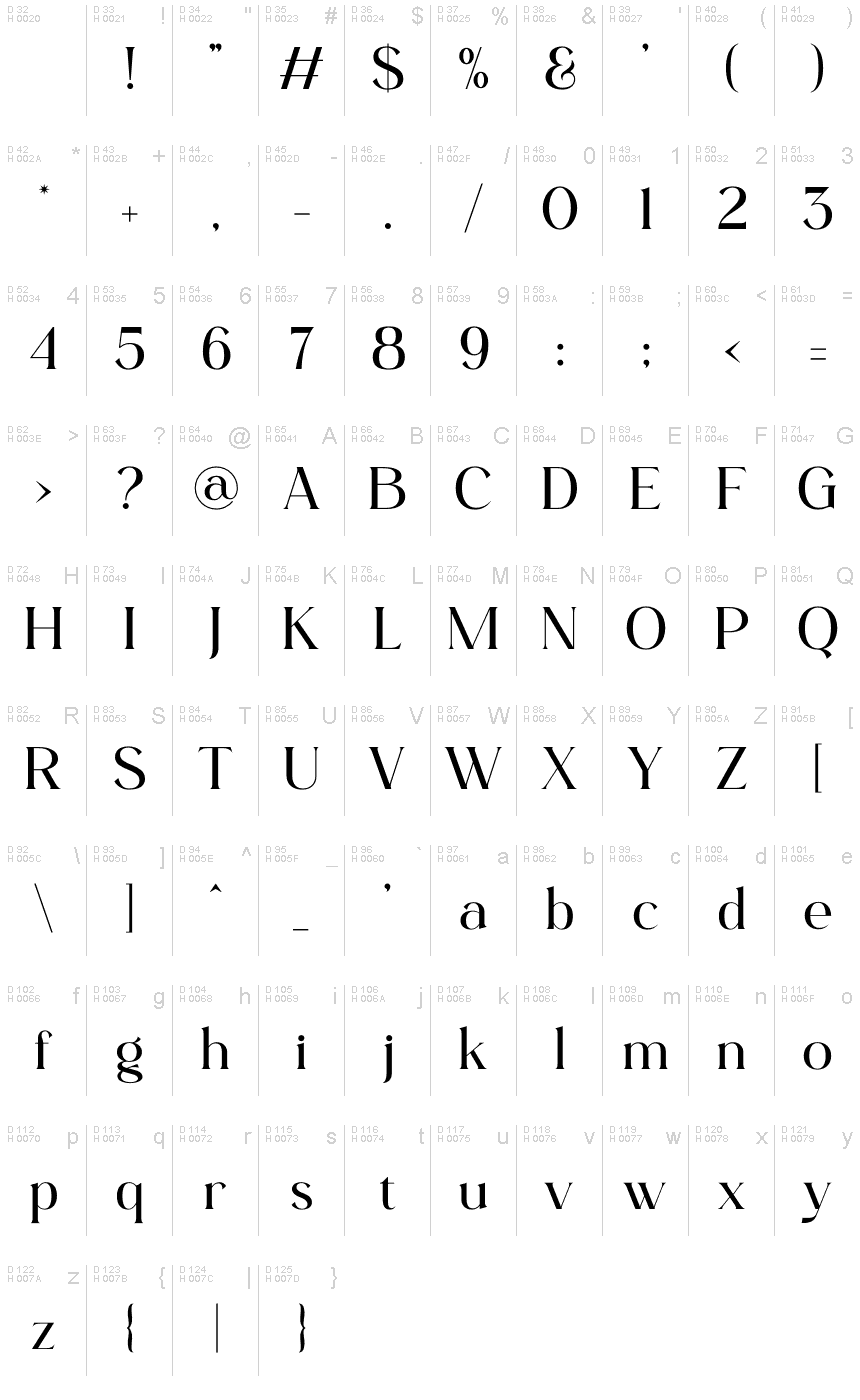
Groillim
Groillim, a serif typeface crafted by BrandSemut, emerges as a distinct blend of classic elegance and contemporary flair. Its serifs are finely tuned to exude sophistication, while the subtle curvature of the letters injects a modern twist into traditional typography. With an aesthetic that balances formality with approachability, Groillim boasts versatility across a spectrum of creative applications.
The font's character shapes display an exquisite attention to detail, ensuring legibility and a pleasing reading experience at various sizes. Groillim's potential shines in print media such as book publishing and editorial design, where its serif style conveys authority and credibility. Equally at home in digital formats, it enhances web design with its crisp outlines that scale beautifully on screens.
Whether used for branding or artistic compositions, Groillim stands out for its ability to marry the timeless beauty of serif fonts with innovative design elements introduced by BrandSemut. This font is poised to become a go-to choice for designers seeking to infuse their projects with both classic charm and fresh appeal.